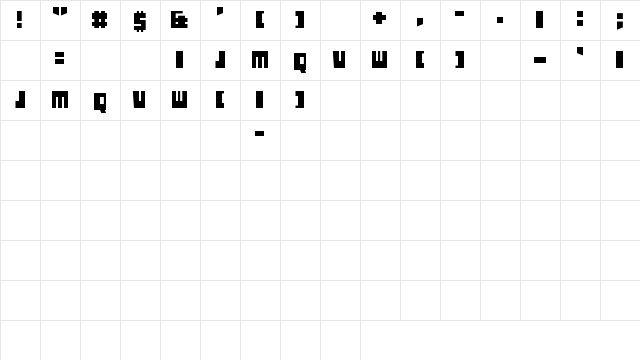
Iregula Regular
| Designer | Andrew McCluskey |
Design Context for Iregula Typeface
Iregula is a composed and adaptable typeface that performs quietly and consistently across a wide range of design contexts.